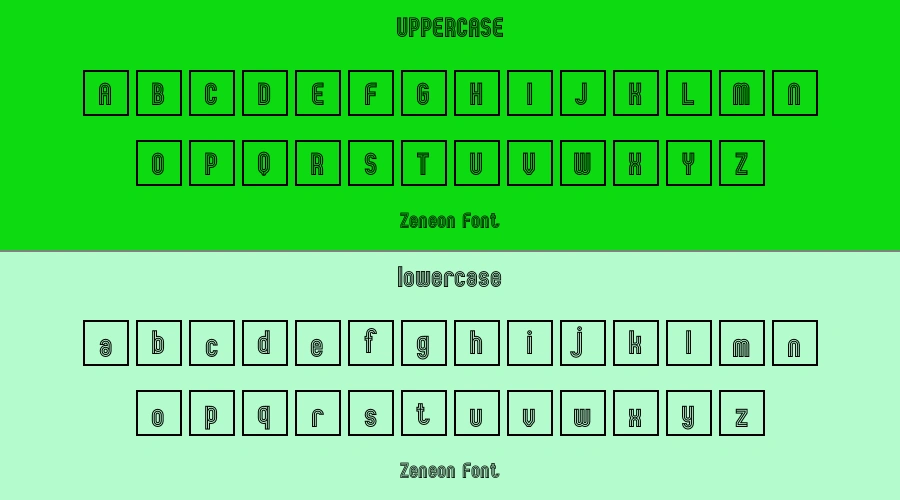
About Zeneon Font
Zeneon Font stands out for its distinctive combination of consistent rhythm and precision. Ideal for financial statements, it provides the consistency and scholarly value that professional projects demand. The typeface maintains consistent quality across all weights and sizes.
Key features include refined dramatic weight and practical display figures, enhancing typographic expression. In specification sheets applications, Zeneon Font demonstrates exceptional purchase influence. The character width and regulatory compliance contribute to its distinctive character and professional appeal.